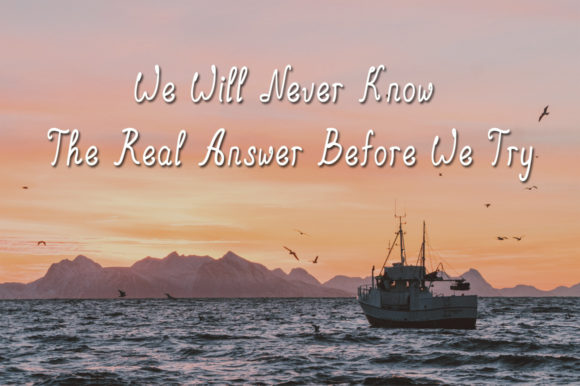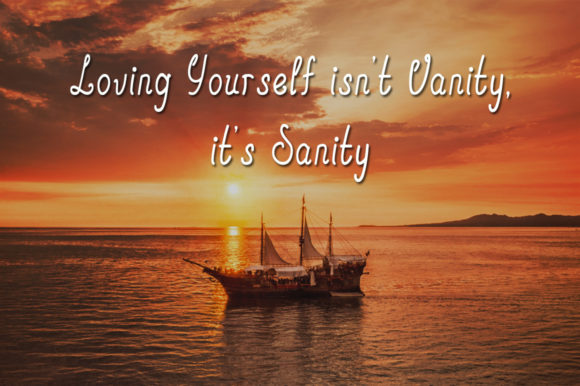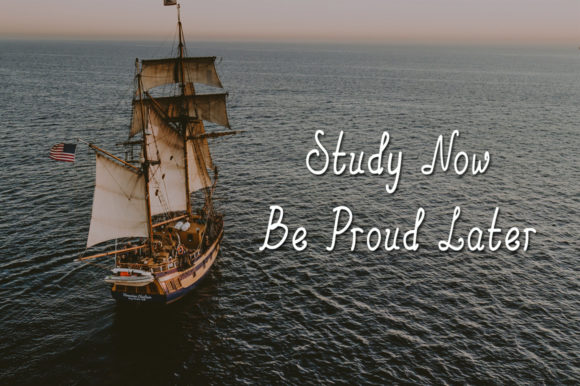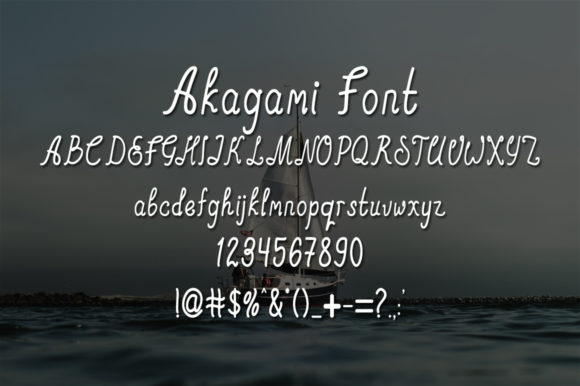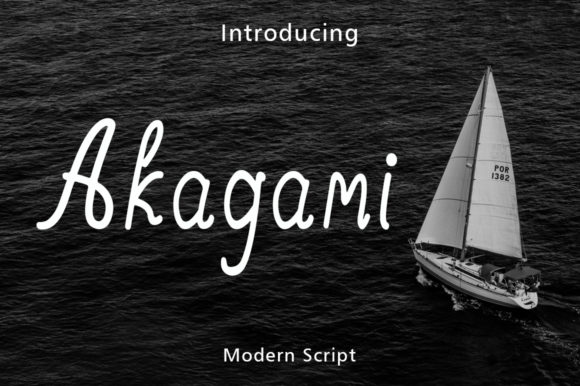
The Akagami Font: A Handwritten Gem for Your DIY Projects
I’ll never forget the time I was working on a DIY project for a client’s wedding invitation. I had the design all planned out, but something was missing – the perfect font. I scrolled through page after page of Google results, but nothing seemed quite right. That was until I stumbled upon the Akagami font. The combination of a brush pen and pencil gives it an endearing, authentic look that’s hard to resist. In this article, I’ll share my experience with Akagami, its unique features, and how to make the most of it in your projects.
An Honest Review of Akagami
What I Love About Akagami ✨
- ✅ Unique, handwritten aesthetic that’s perfect for DIY projects and crafts
- ✅ Smooth, flowing lines that give it a natural, effortless feel
- ✅ Supports OpenType features, glyphs, and stylistic alternates for added versatility
- ⚠️ Limited language support, so be sure to check compatibility before use
The Story Behind Akagami
Akagami was designed with the intention of capturing the imperfections and charm of handwritten text. The font’s creator sought to create a unique, authentic look that would bring a personal touch to DIY projects and crafts. By combining the fluid lines of a brush pen with the precision of a pencil, Akagami was born – a font that’s both beautiful and endearing.
| Font Name | Akagami Font |
| Q: What type of projects is Akagami best suited for? | Akagami is perfect for DIY projects, crafts, and creative hobbies. It’s ideal for designs that require a personal, handwritten touch. |
| Q: Is Akagami suitable for body text? | While Akagami is highly legible, it’s best suited for headlines, titles, and short paragraphs. For longer body text, a clearer font may be more suitable. |